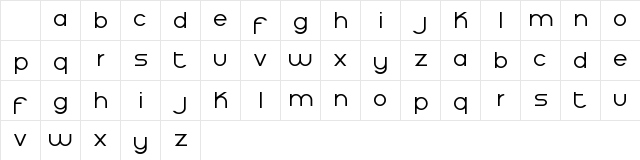
Moiser is a composed and adaptable typeface that performs quietly and consistently across a wide range of design contexts.
Pro Tip: Use Moiser in both headline and body roles to test its range before committing to a single application.